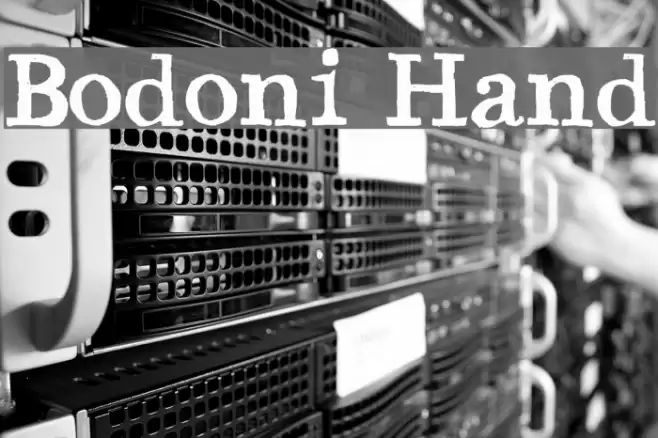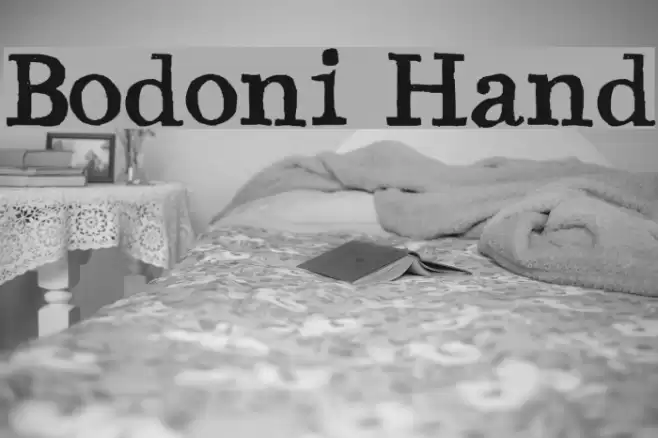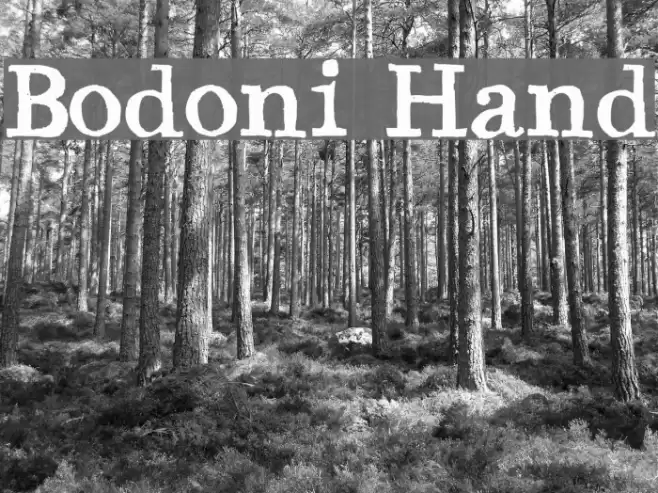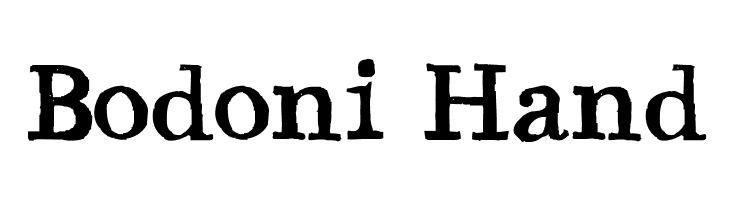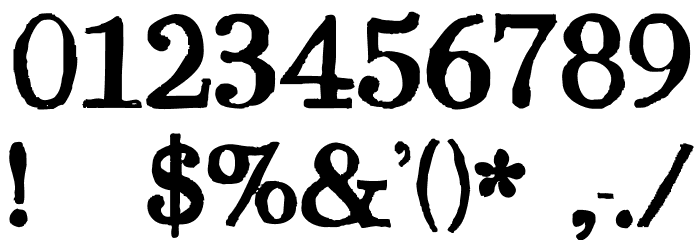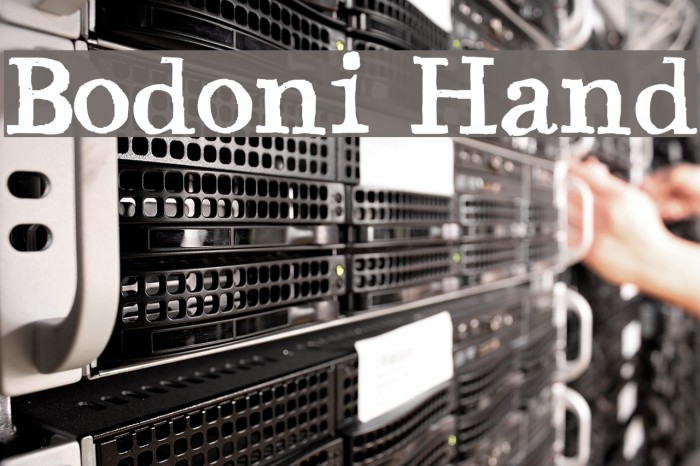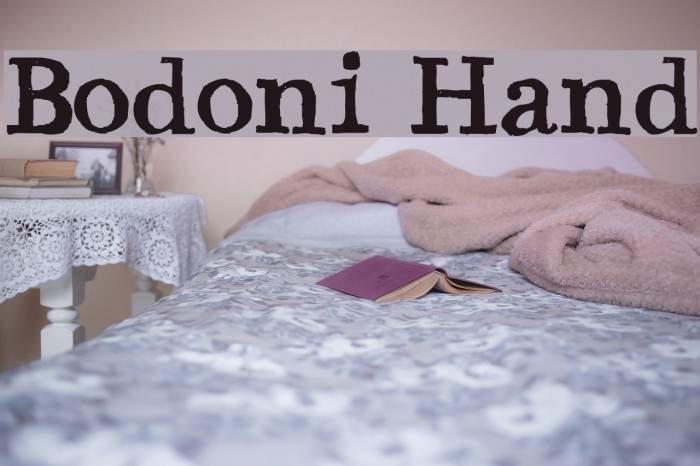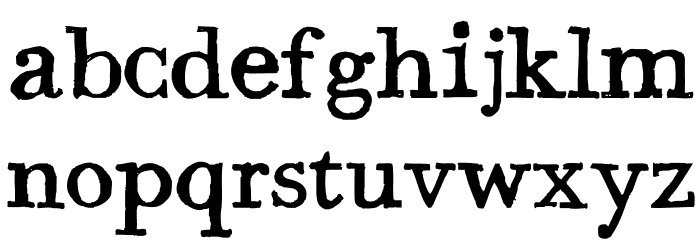
Bodoni Hand Font
Bodoni Hand Description
This font exhibits a classic serif style with a distinctive hand-drawn appearance. The characters are bold and have a high contrast between thick and thin strokes, giving them a dramatic and elegant look. The serifs are pronounced and slightly curved, adding a touch of sophistication. The uppercase letters are tall and commanding, while the lowercase letters maintain a consistent flow with rounded edges. The numerals are robust and clear, ensuring readability. Special characters are crafted with the same attention to detail, making them suitable for various design needs.
A bold, high-contrast serif font with a hand-drawn aesthetic from Distorted Eroded fonts.
- Proposed Projects: Ideal for projects requiring a classic yet artistic touch, such as book covers, posters, branding, and editorial design.
- Overall Style: Classic, Decorative